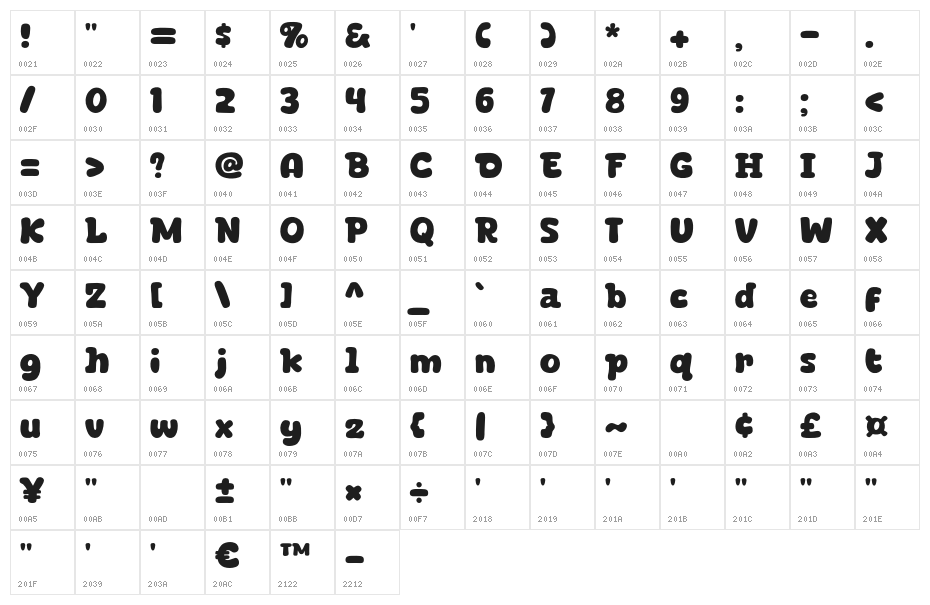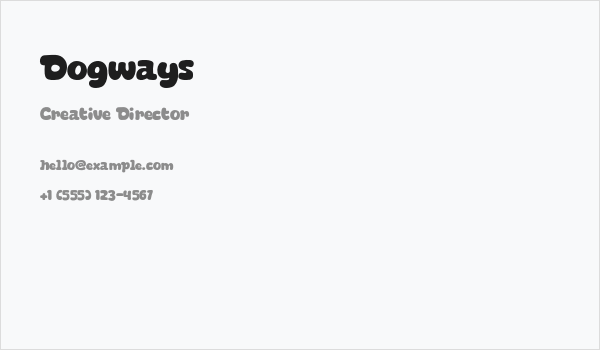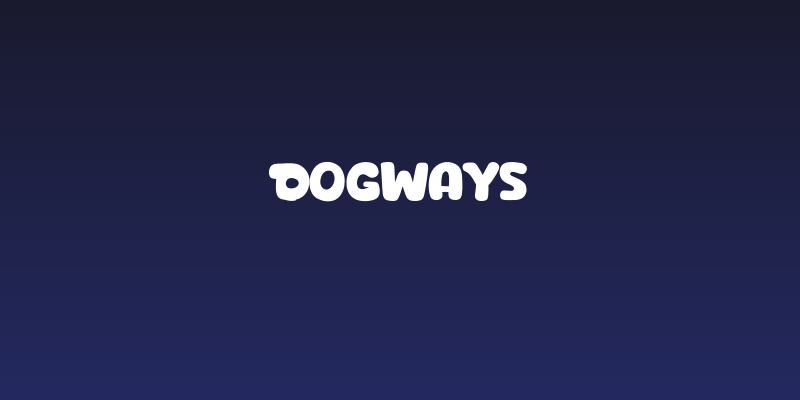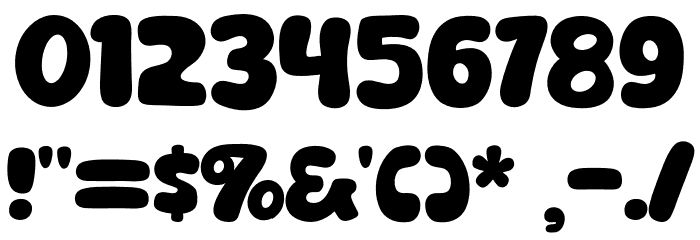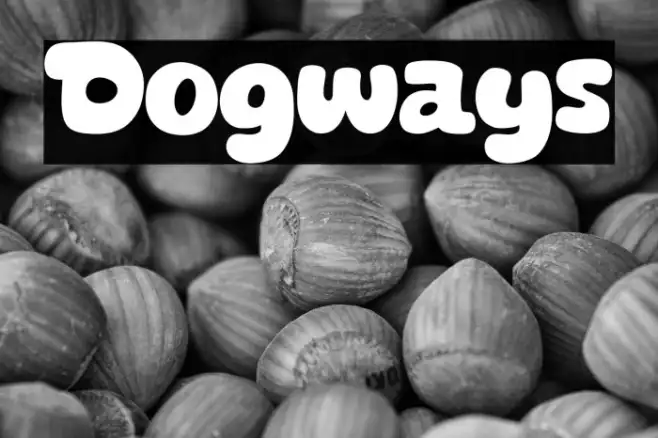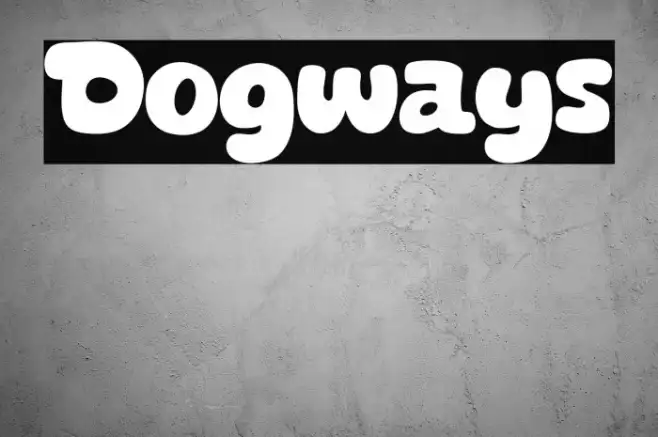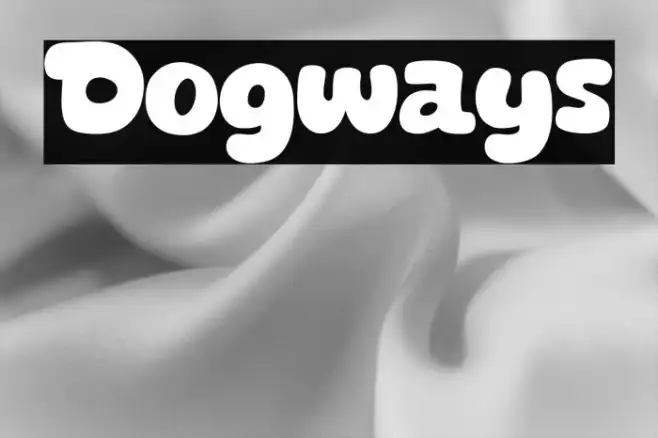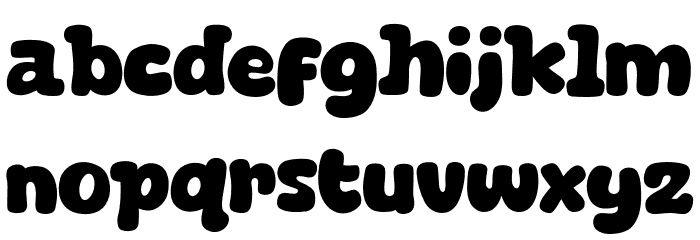
Dogways Font
Dogways Description
This playful and bold font features rounded, bubbly characters that exude a sense of fun and whimsy. The thick strokes and soft curves give it a friendly and approachable appearance, making it ideal for designs that aim to convey warmth and creativity. The letters are evenly spaced, ensuring readability while maintaining a cohesive look. The font includes a full set of uppercase and lowercase letters, numbers, and a variety of special characters, offering versatility for different design needs. Its unique style makes it stand out, perfect for projects that require a touch of personality and charm.
| Proposed Projects | Children's books, playful branding, party invitations, and creative posters. |